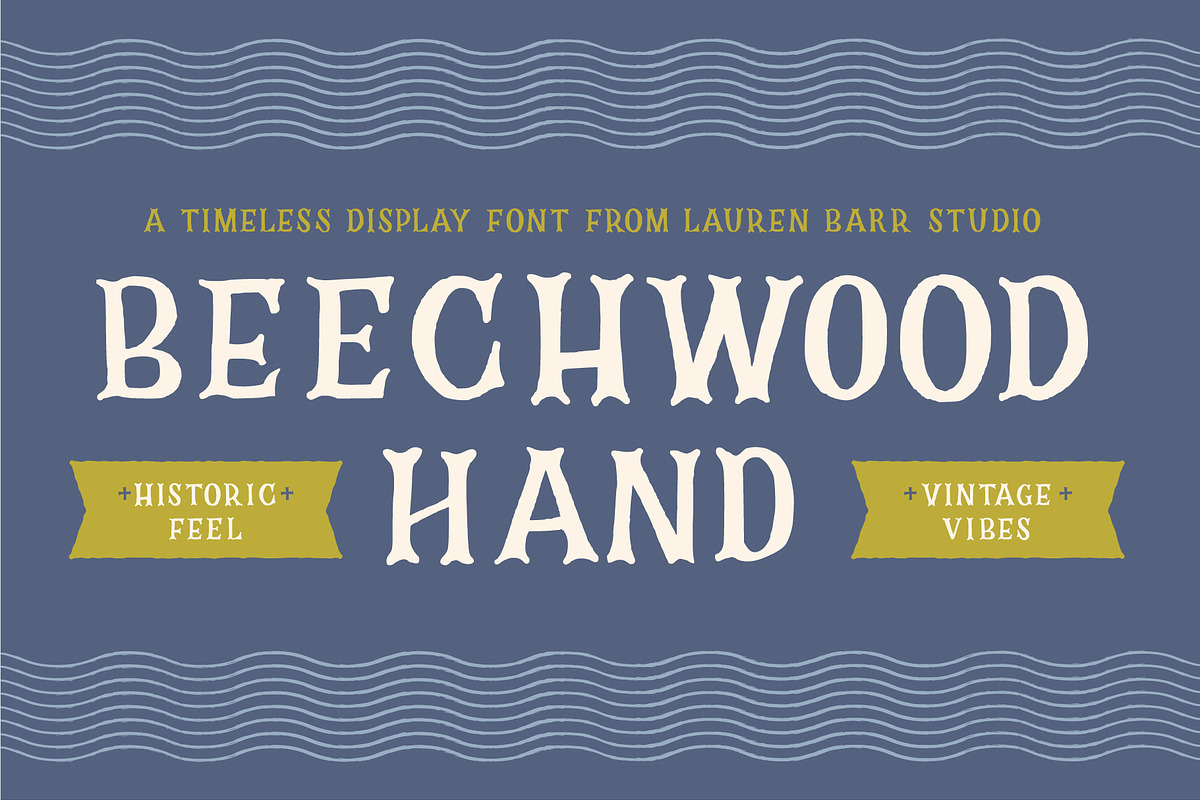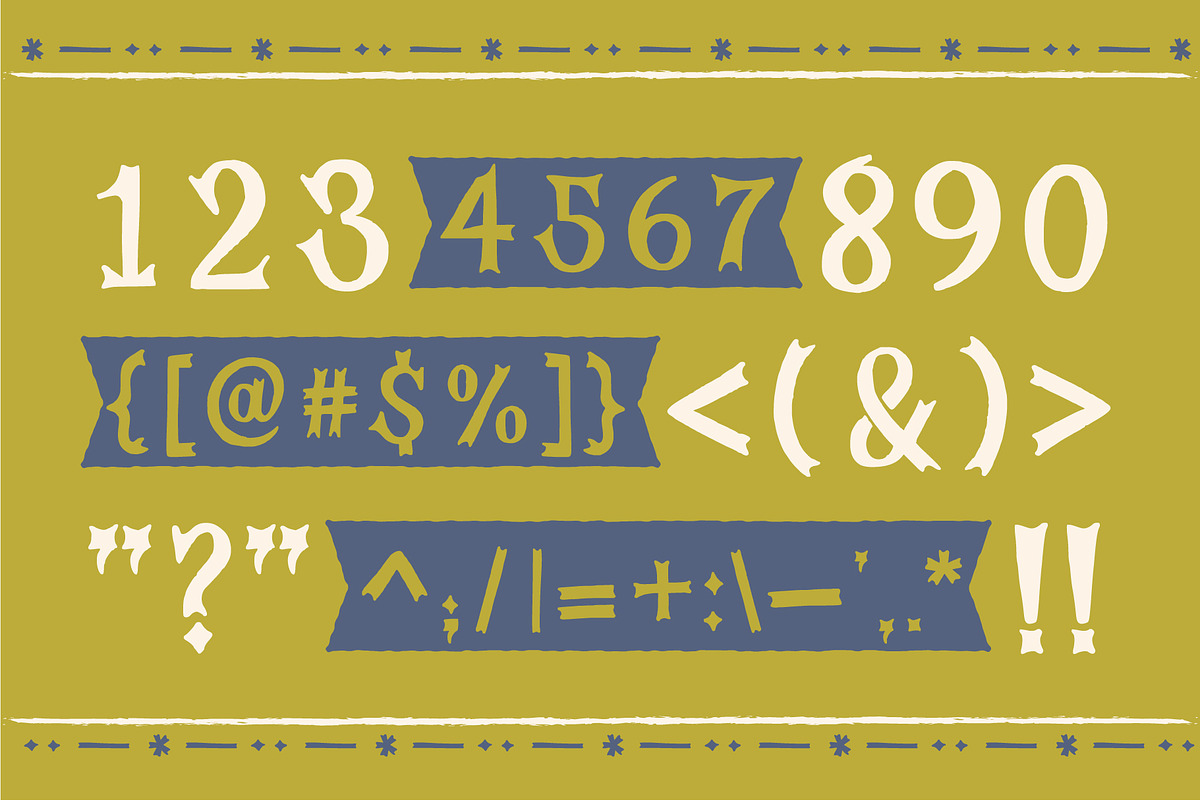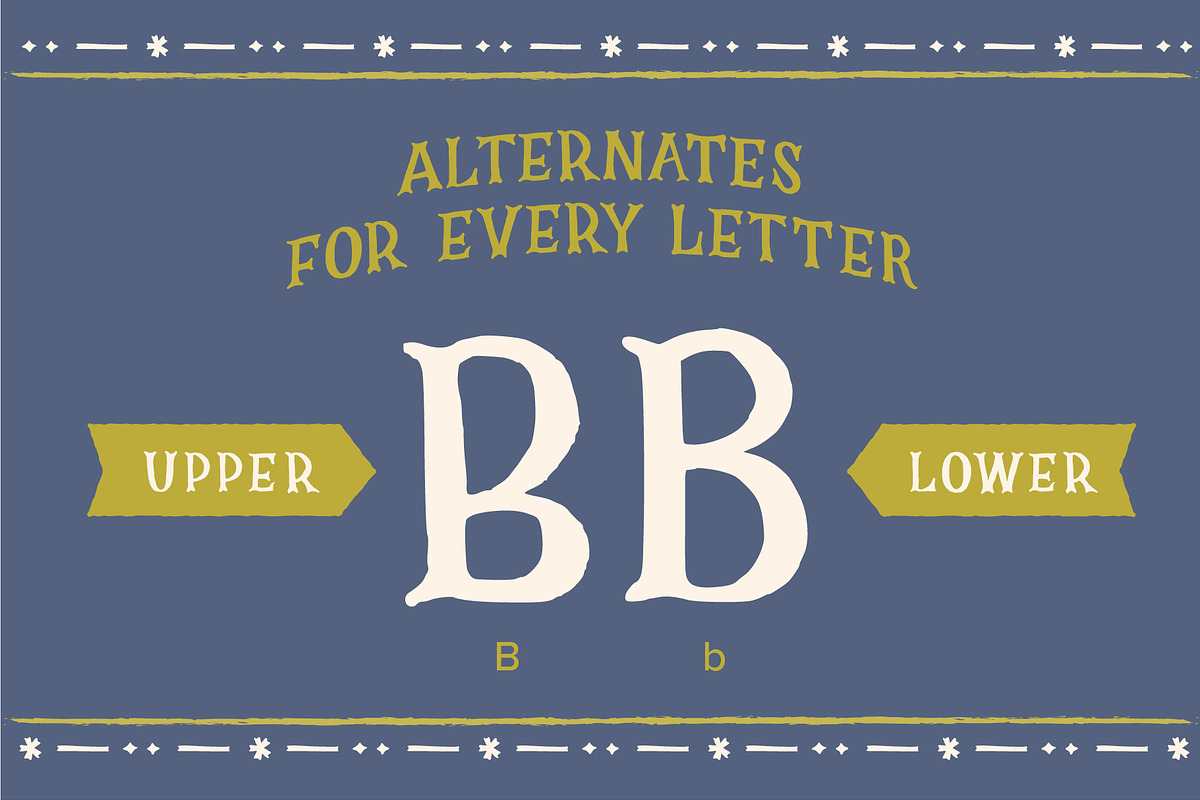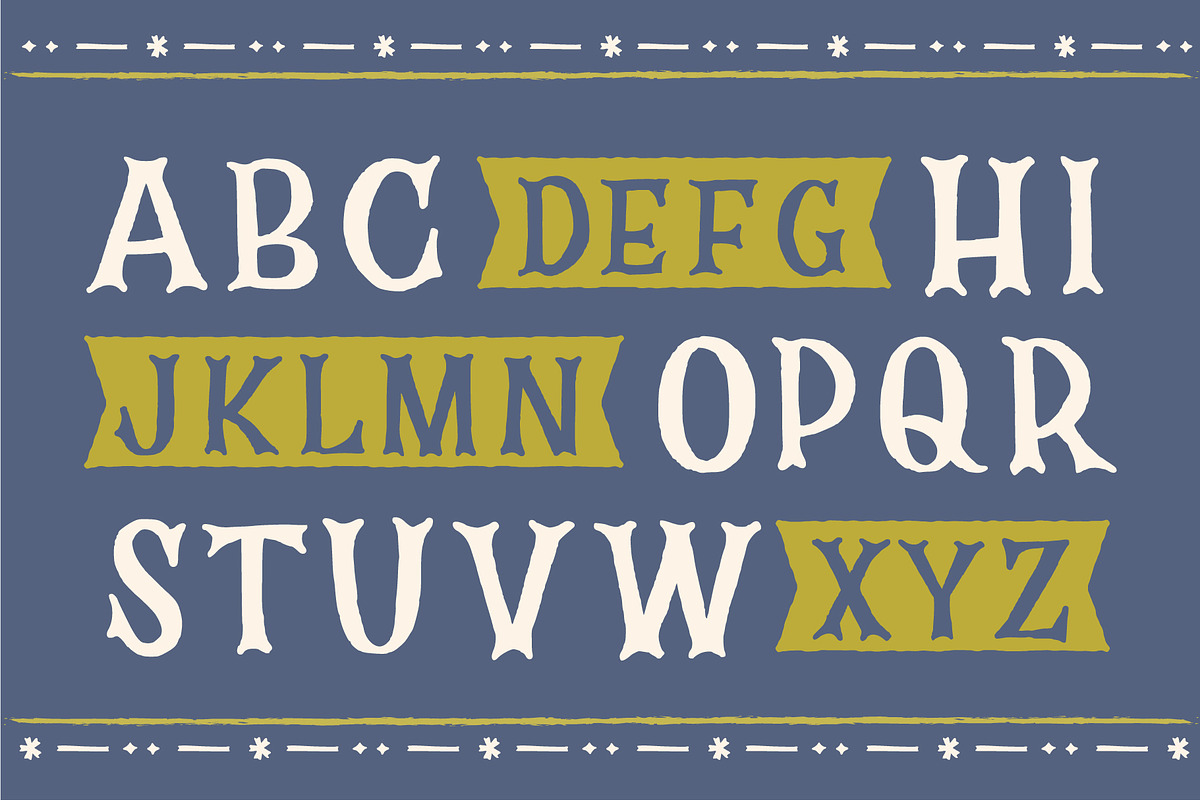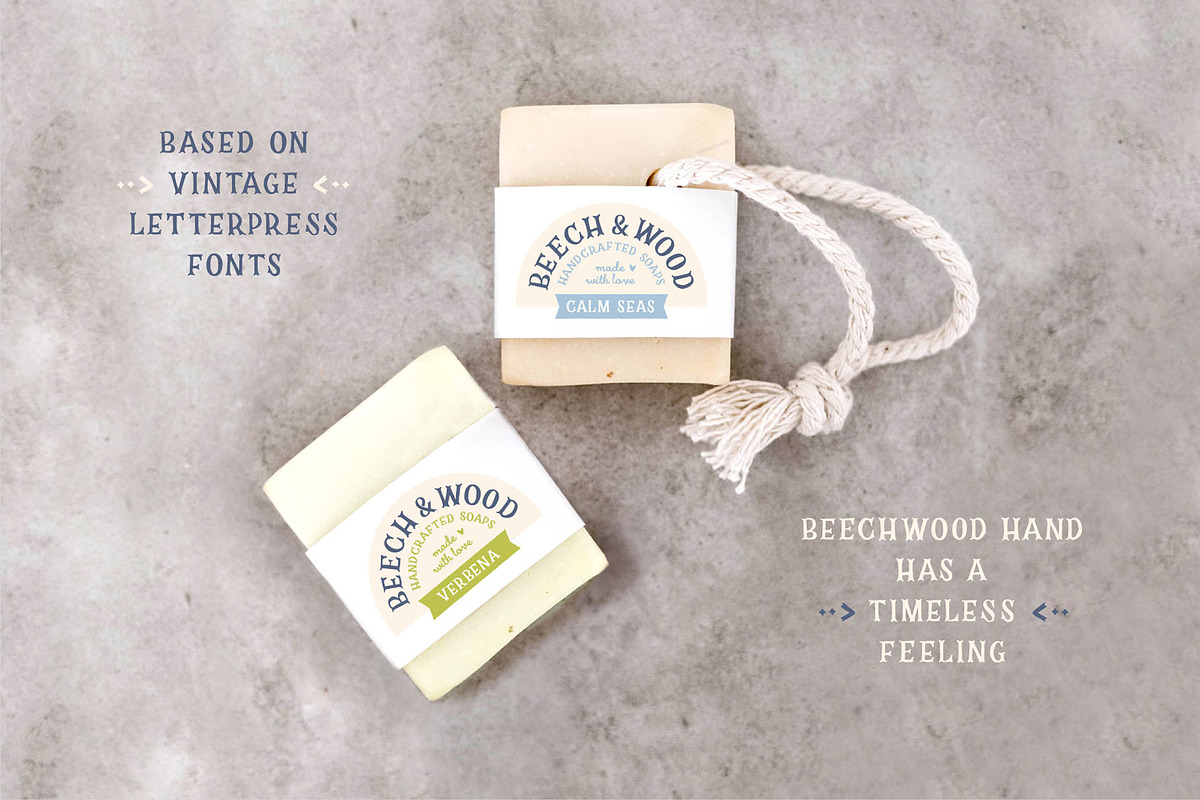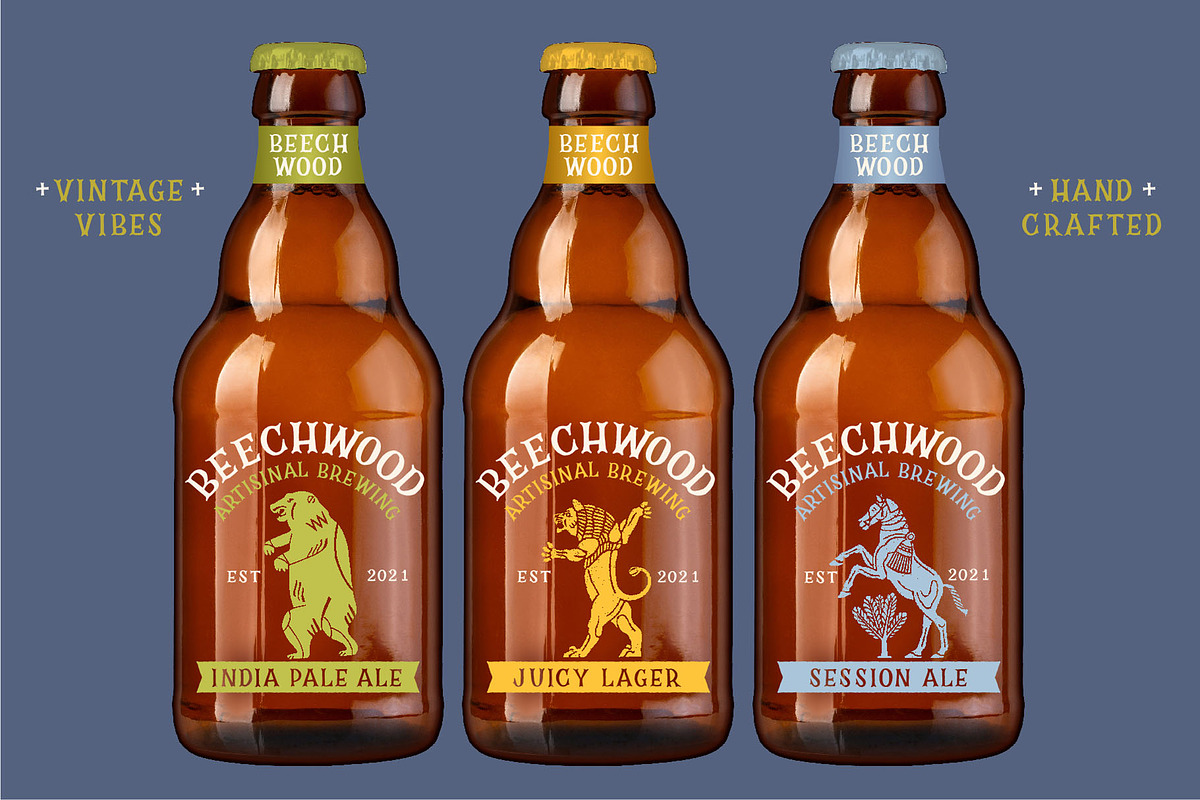
Beechwood Hand
Beechwood Hand is a timeless all caps font with vintage vibes. It’s based on historical letterpress wood type fonts and is completely hand drawn. It includes numbers, punctuation and two versions of each letter. Message me for additional foreign extensions.